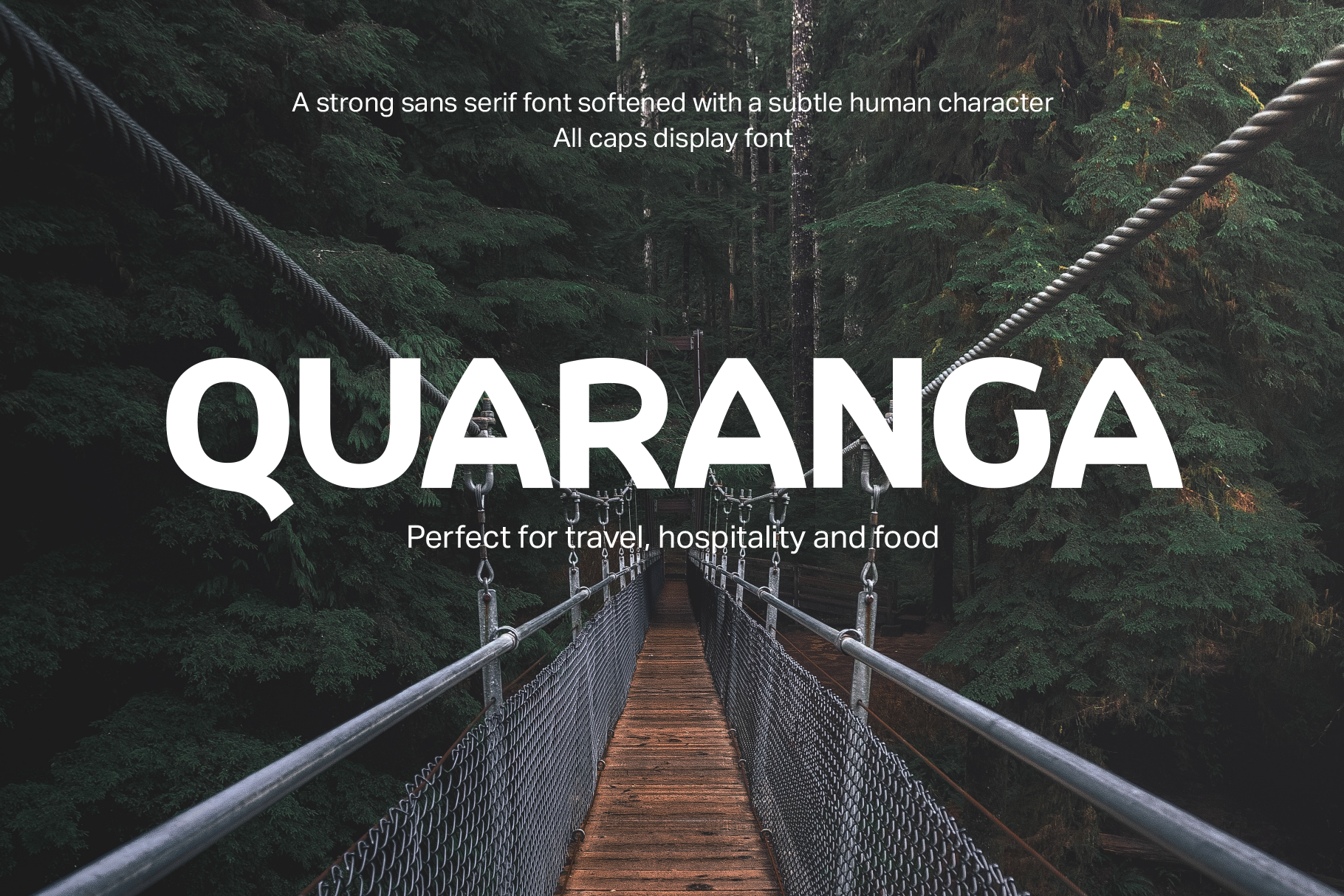
Quaranga Display Font
A strong, confident sans serif font softened with slight curves giving it a human, approachable character. It is an all caps display font perfect for travel, hospitality and food.